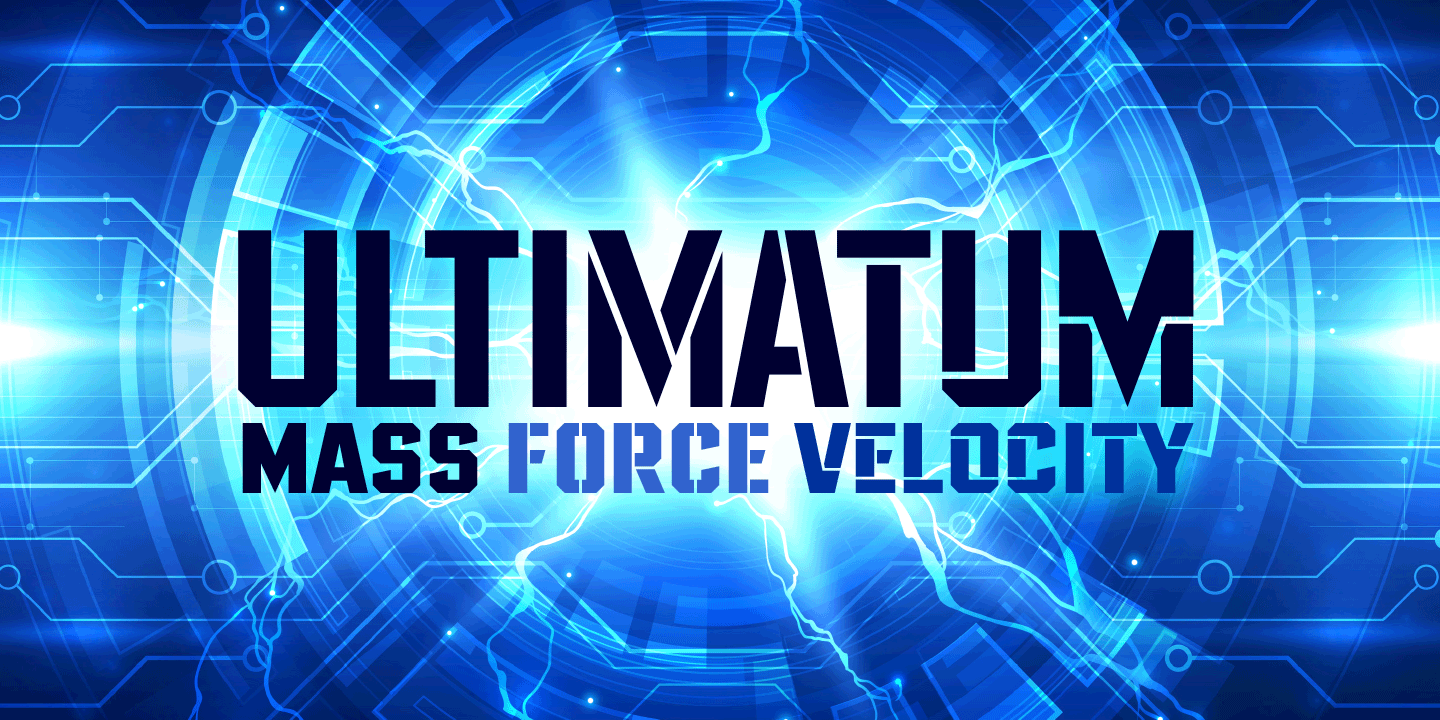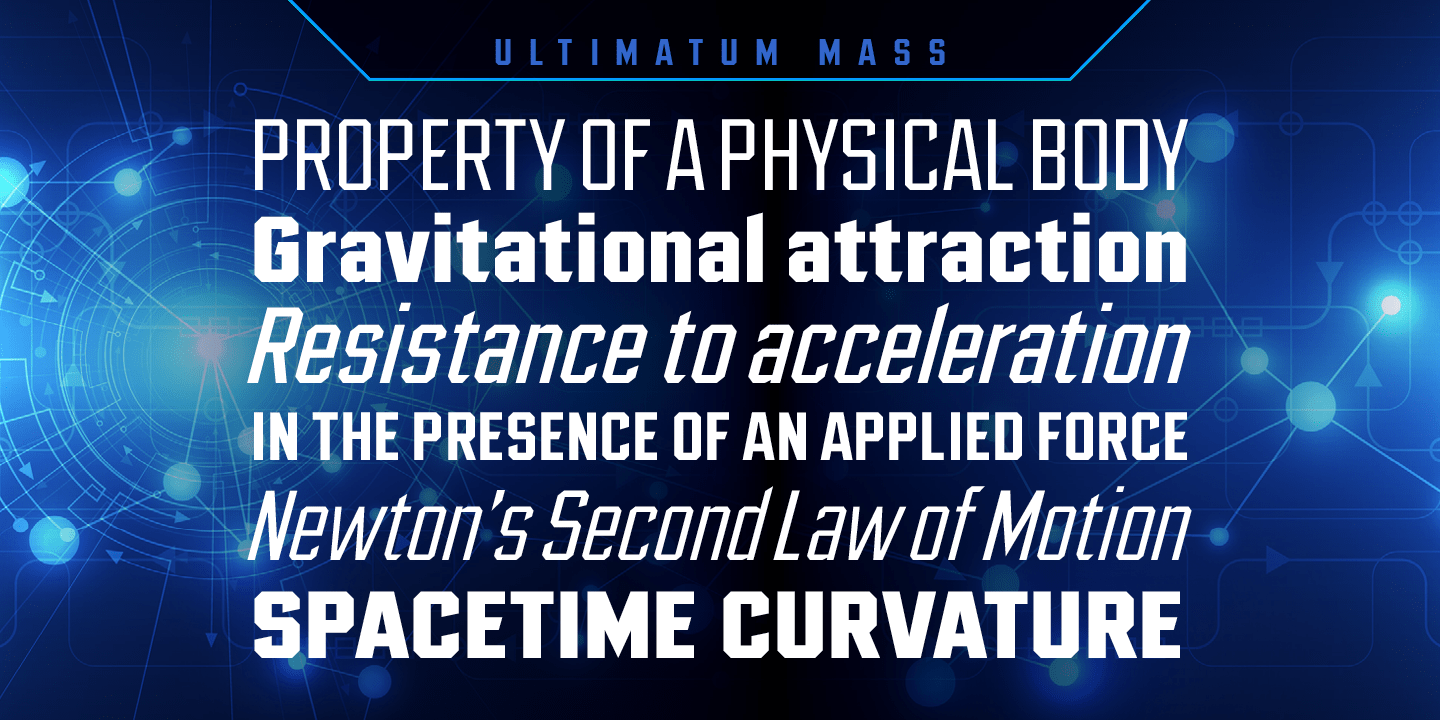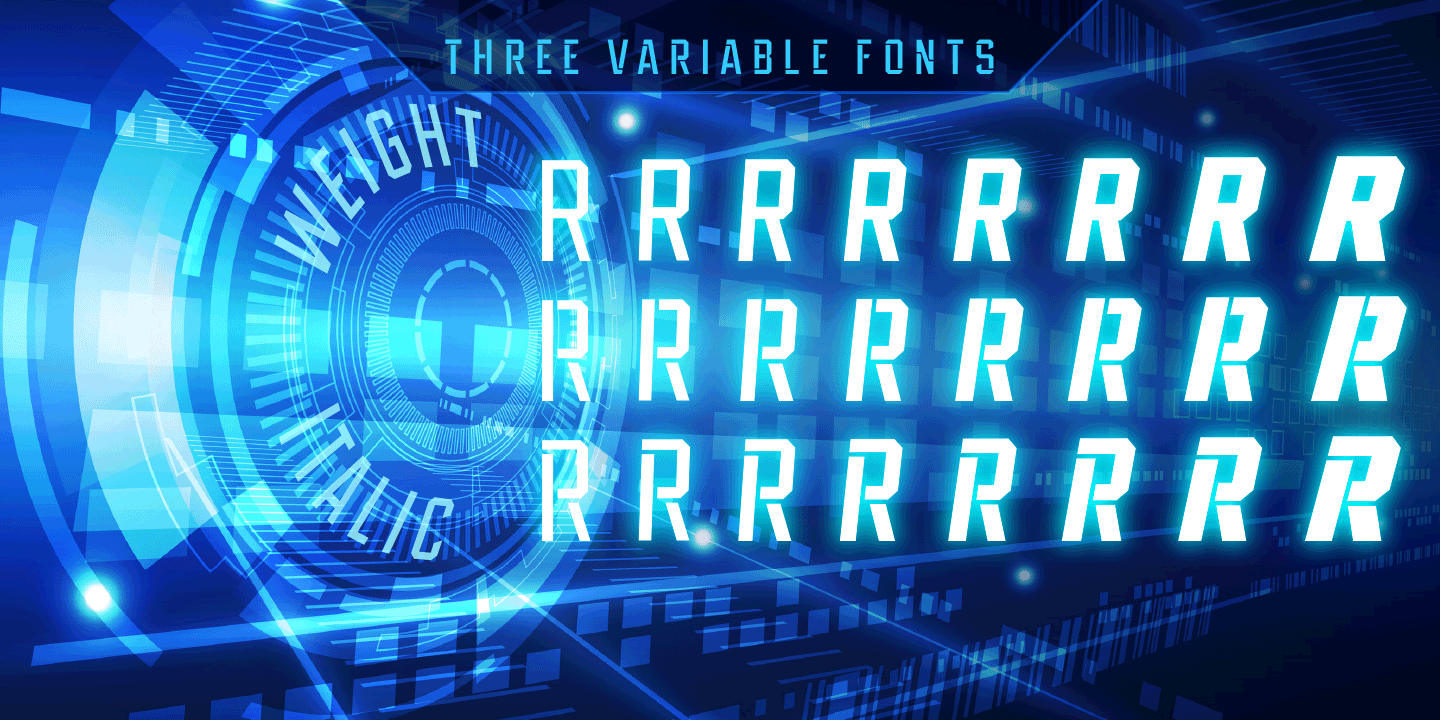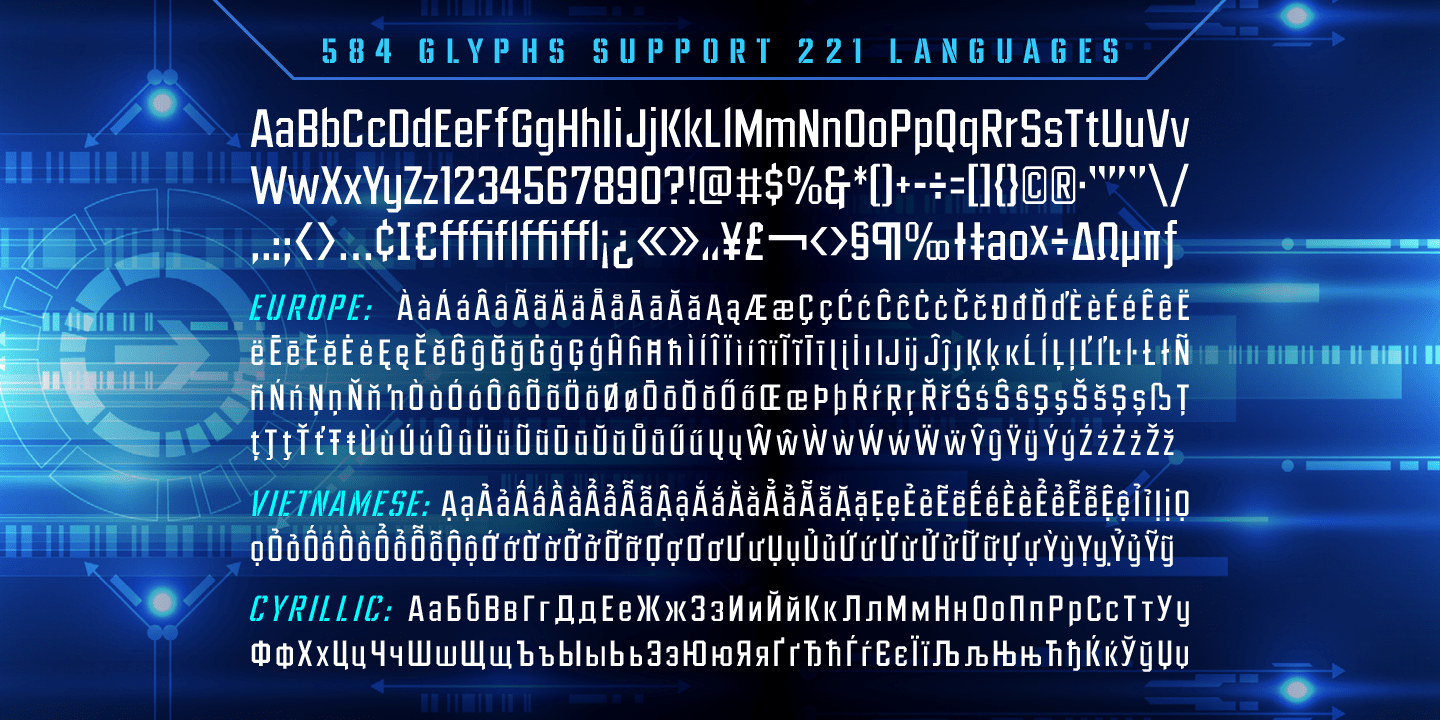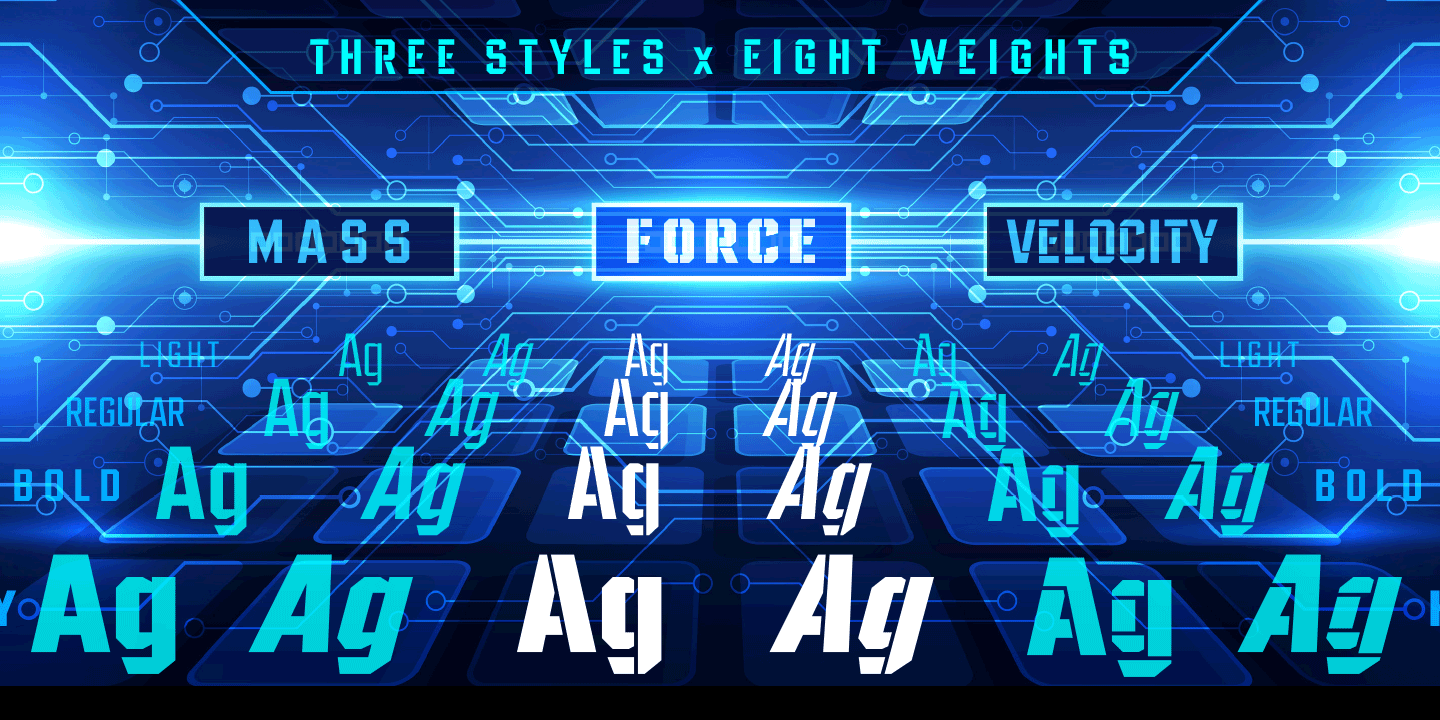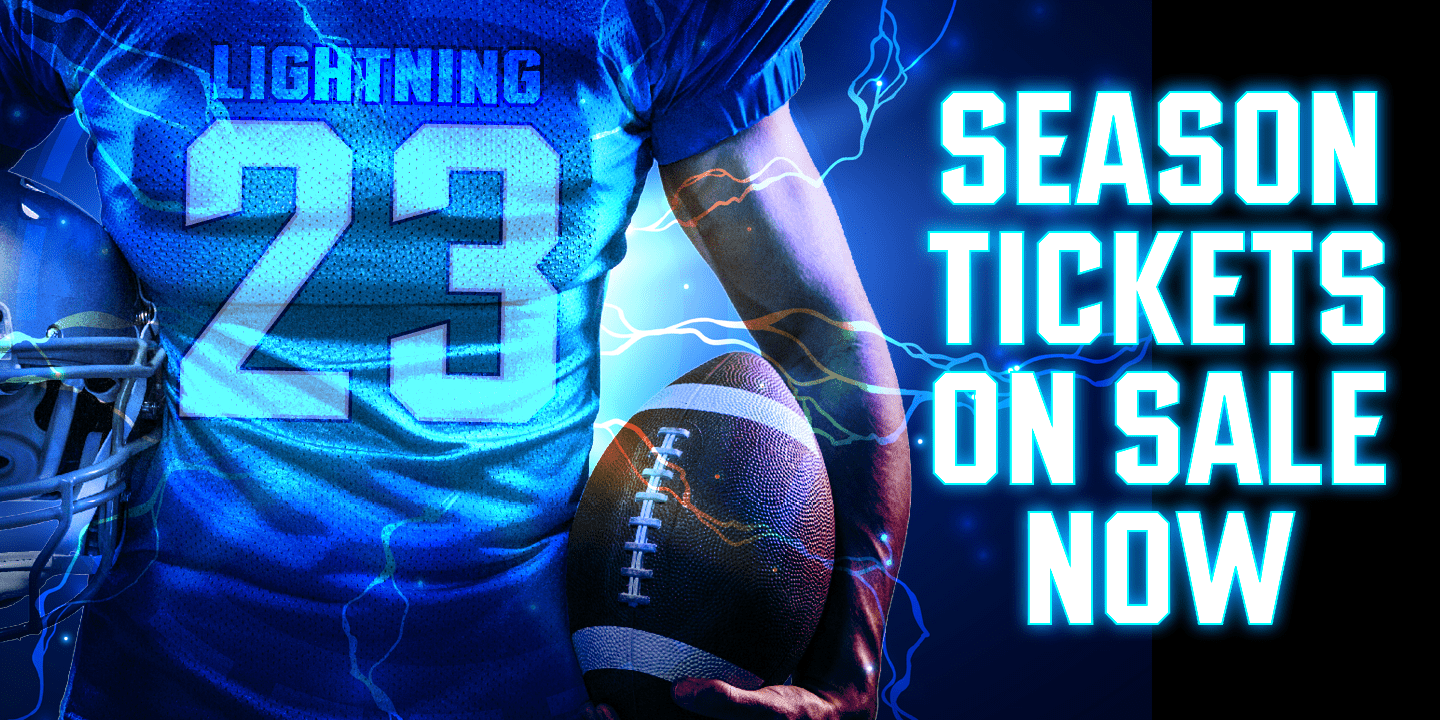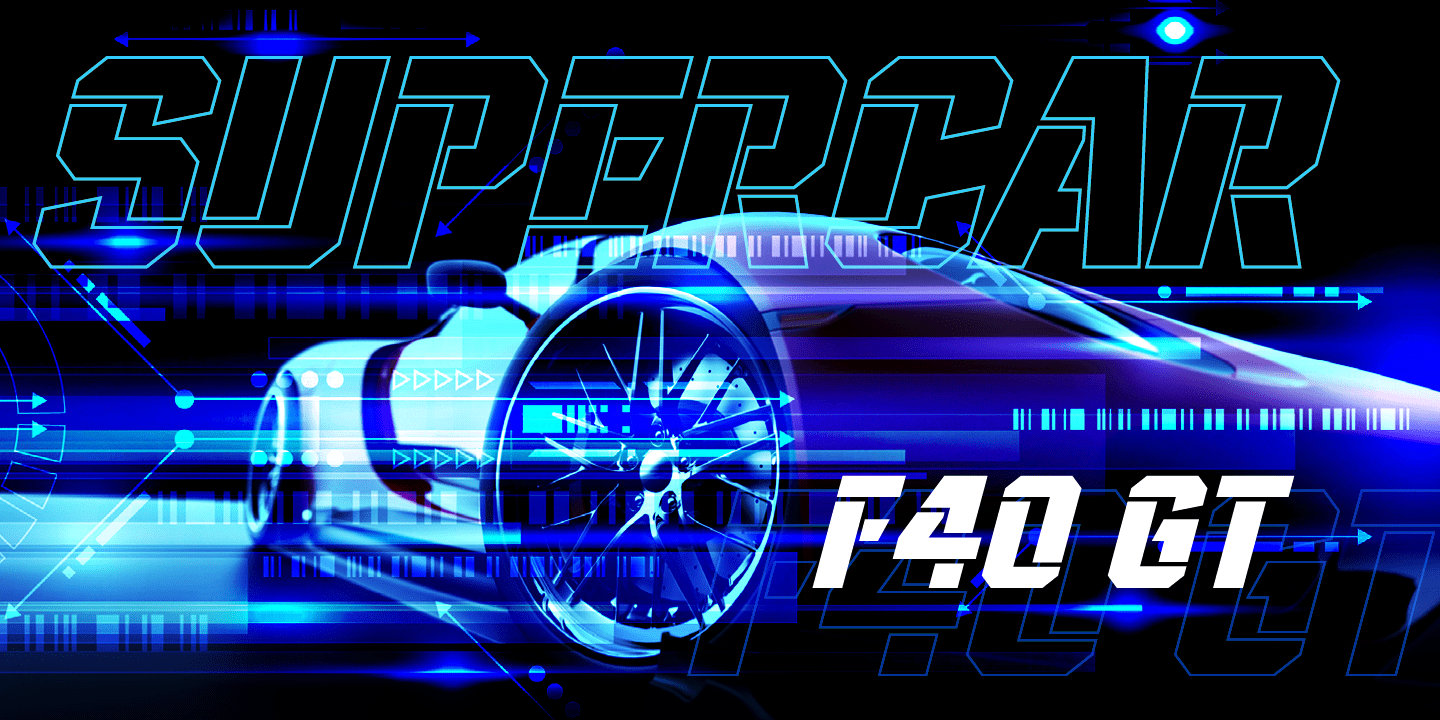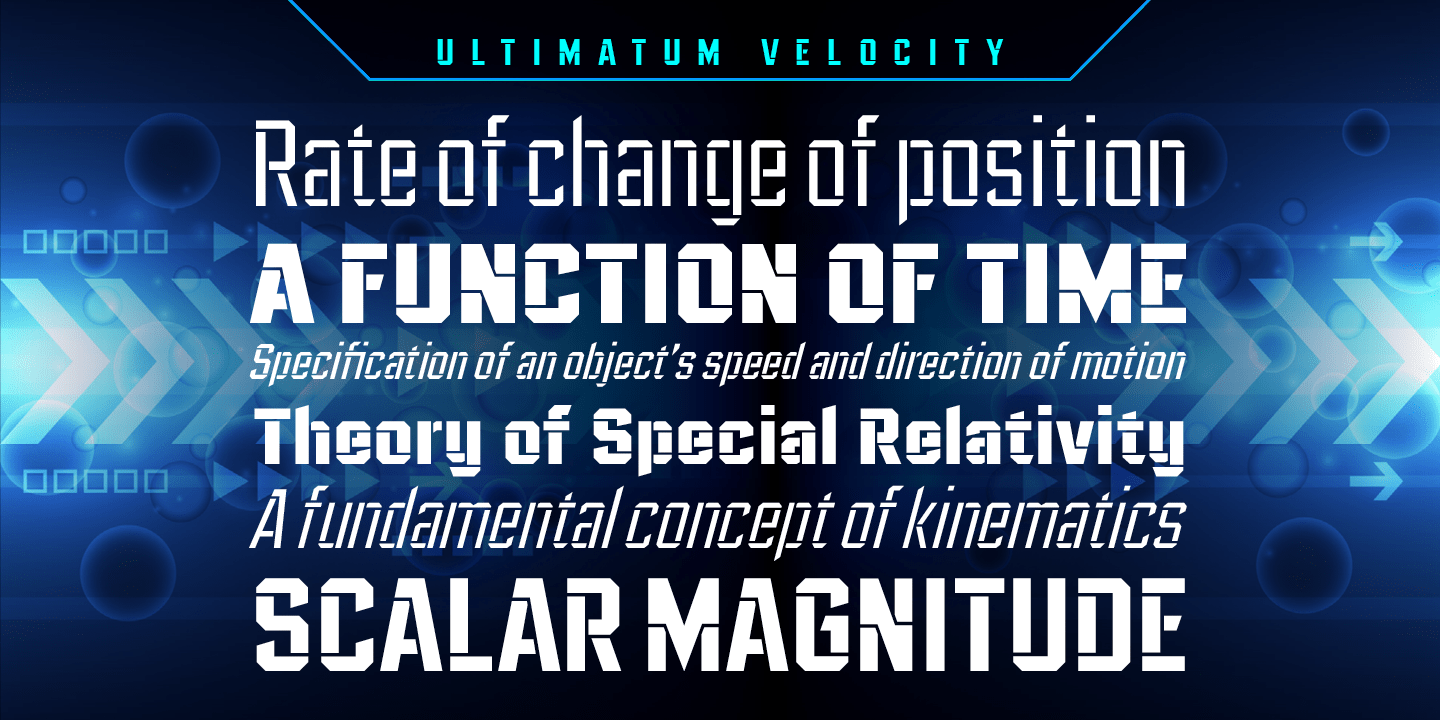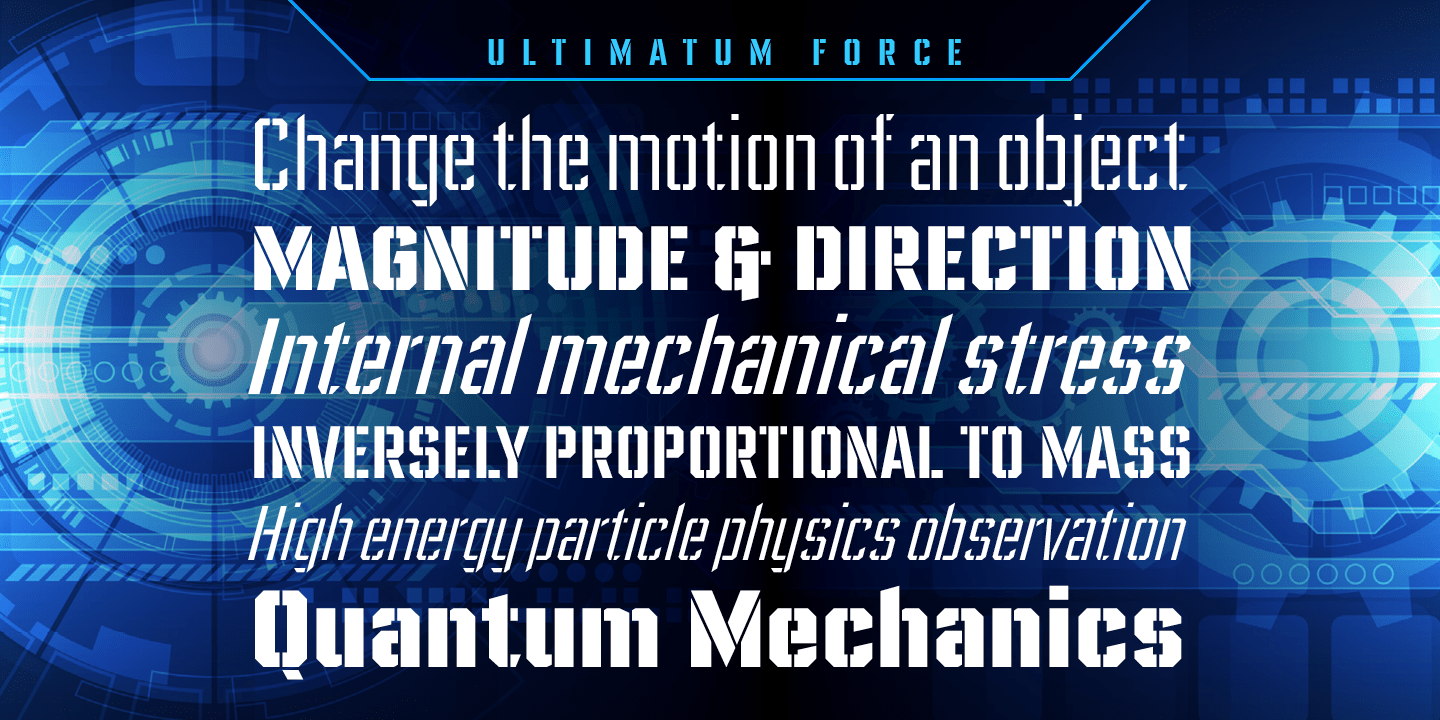
Ultimatum MFV
FINALLY! We're telling you for The Last Time! This is not a Threat! This is not a Negotiation! Refusal to cooperate with the terms of this font will be considered an Act of War! There can be no Dispute! The Crisp, Sharp hooks and corners of this typeface are Not To Be Reasoned With!
Gosh Darn it, we have grown tired of asking and this is merely a formality precedent to the outbreak of hostilities. It's a little corporate, it's a little bureaucratic, but our lawyers insisted that we propose a settlement of compromise. Ipso Facto.